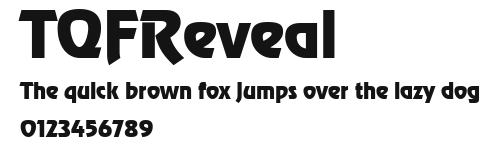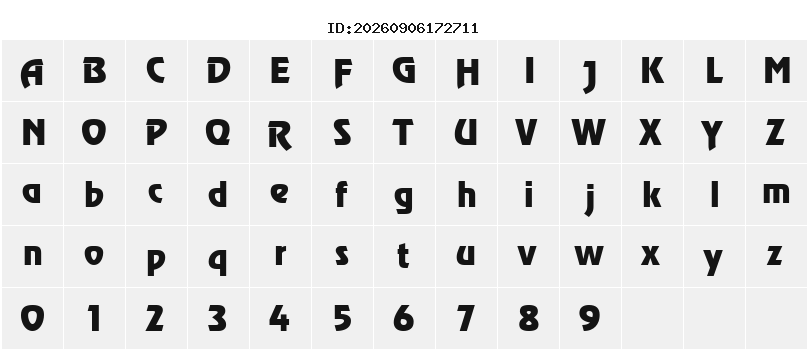
• Font Name: TQF_Reveal
• Full Font Name: TQF_Reveal
• PostScript Name: TQFReveal
About TQF_Reveal.ttf
TQF_Reveal.ttf is a modern, elegant sans-serif font designed for ultimate readability and visual harmony. Perfect for branding, headlines, web design, and print materials.